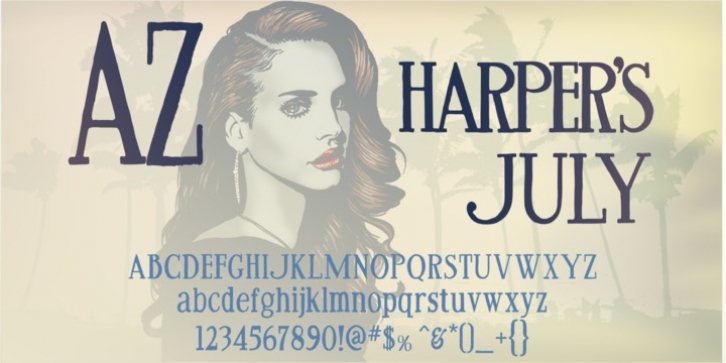
AZ Harpers July was published by Artist of Design. AZ Harpers July contains 1 style.
AZ Harper's July font is inspired from original early 1900's Edward Penfield's poster art. This font is designed for use as a worn and antiqued headline.